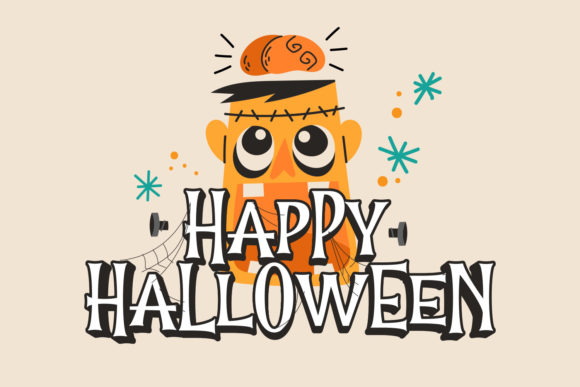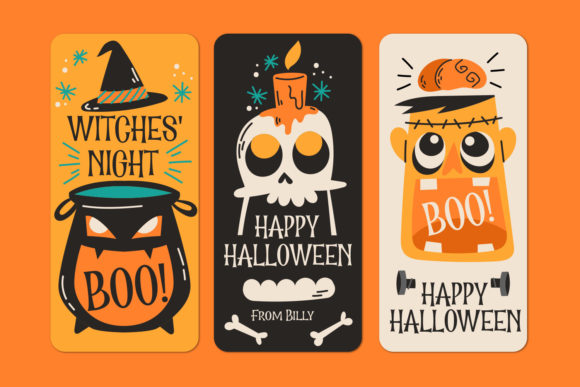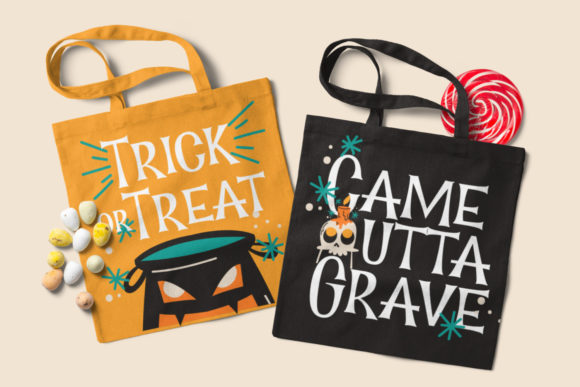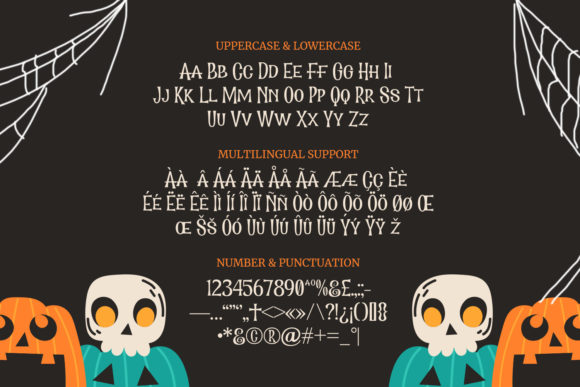
Gratefully Font: The Perfect Addition to Your Halloween-Themed Projects
Are you looking for a font that will add a spooky touch to your Halloween-themed projects? Look no further than the Gratefully Font! This thick-lettered and spooky display font is perfectly suitable for any Halloween-related project or crafty idea. In this article, we’ll take a closer look at the Gratefully Font and explore its features, benefits, and uses.
What is Gratefully Font?
Gratefully Font is a unique and eye-catching display font that is designed to add a touch of spookiness to your projects. Its thick letters and bold design make it perfect for creating eye-catching titles, headings, and graphics. The font is carefully crafted to evoke the spirit of Halloween, making it an ideal choice for crafters, designers, and DIY enthusiasts who want to create spooky and festive projects.
Key Features of Gratefully Font
So, what makes Gratefully Font stand out from other fonts? Here are some of its key features:
- Thick-Lettered Design: The font features thick, bold letters that are perfect for creating eye-catching titles and headings.
- Spooky and Festive: The font is designed to evoke the spirit of Halloween, making it perfect for creating spooky and festive projects.
- PUA Encoded: The font is PUA encoded, which means you can access all glyphs and swashes with ease.
Benefits of Using Gratefully Font
So, why should you choose Gratefully Font for your Halloween-themed projects? Here are some of the benefits of using this font:
- Adds a Spooky Touch: The font adds a spooky and festive touch to your projects, making them perfect for Halloween-themed crafts and designs.
- Versatile: The font is versatile and can be used for a variety of projects, including invitations, posters, and social media graphics.
- Easily Customizable: The font is easily customizable, allowing you to adjust the size, color, and style to fit your project’s needs.
- Unique and Eye-Catching: The font is unique and eye-catching, making it perfect for creating projects that stand out from the crowd.
Uses of Gratefully Font
So, what can you use Gratefully Font for? Here are some ideas:
- Halloween Invitations: Use the font to create spooky and festive invitations for Halloween parties and events.
- Posters and Flyers: Use the font to create eye-catching posters and flyers for Halloween-themed events and promotions.
- Social Media Graphics: Use the font to create spooky and festive social media graphics, including Facebook posts, Instagram stories, and Twitter headers.
- Crafting Projects: Use the font to add a spooky touch to your crafting projects, including scrapbooking, card making, and DIY decorations.
In conclusion, Gratefully Font is a unique and eye-catching display font that is perfect for adding a spooky touch to your Halloween-themed projects. Its thick letters, bold design, and PUA encoding make it easy to use and customize. Whether you’re a designer, crafter, or DIY enthusiast, Gratefully Font is a great addition to your font collection. So why not give it a try and see how it can elevate your Halloween-themed projects?